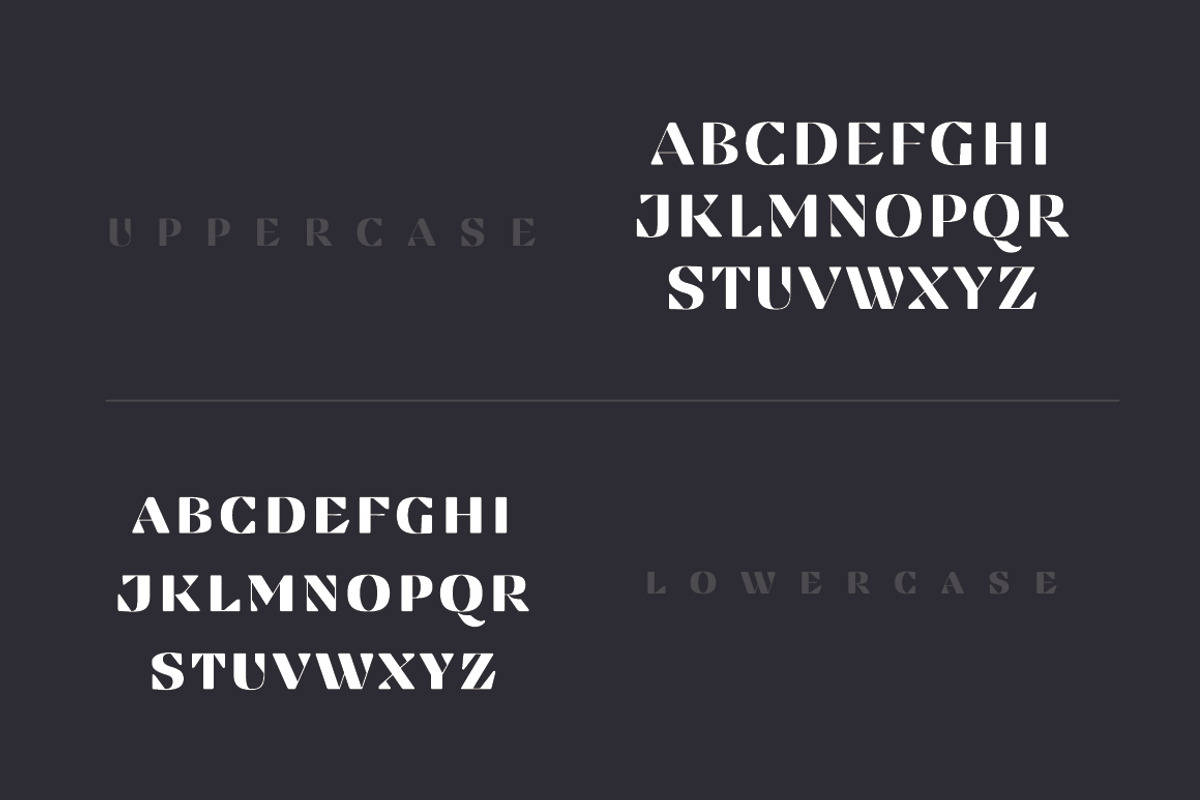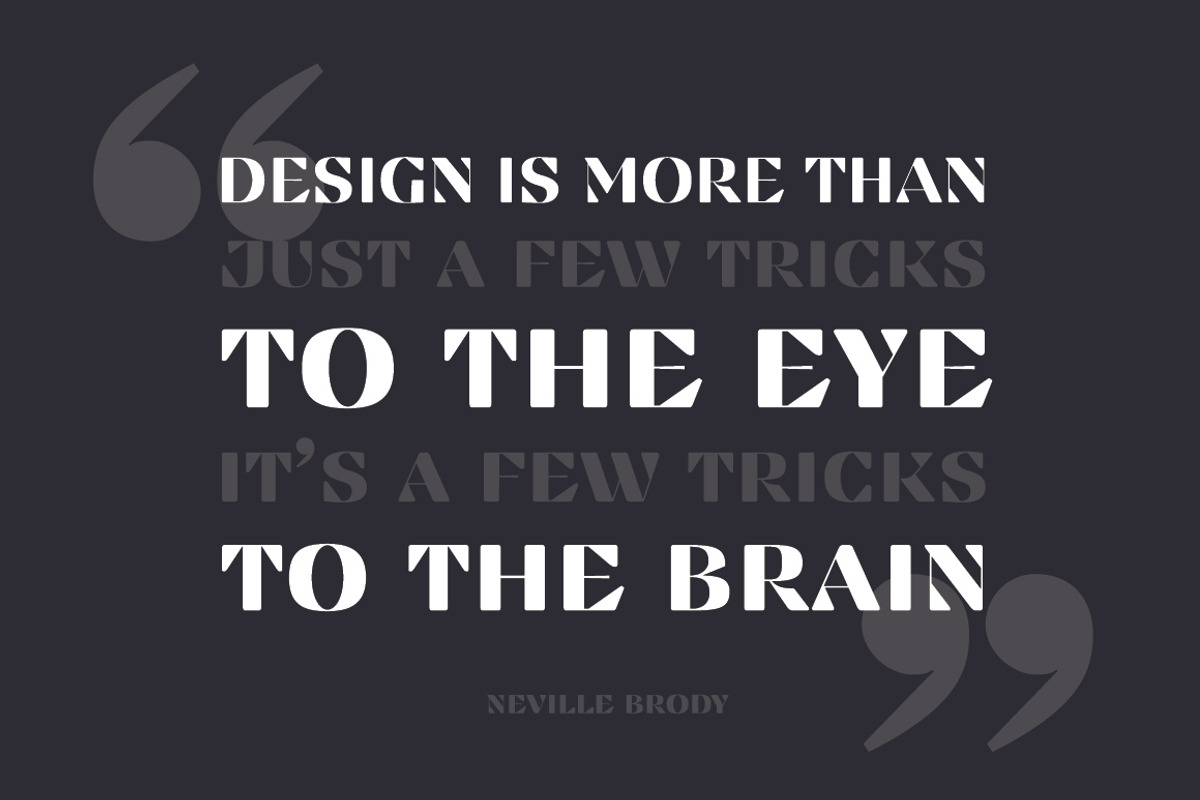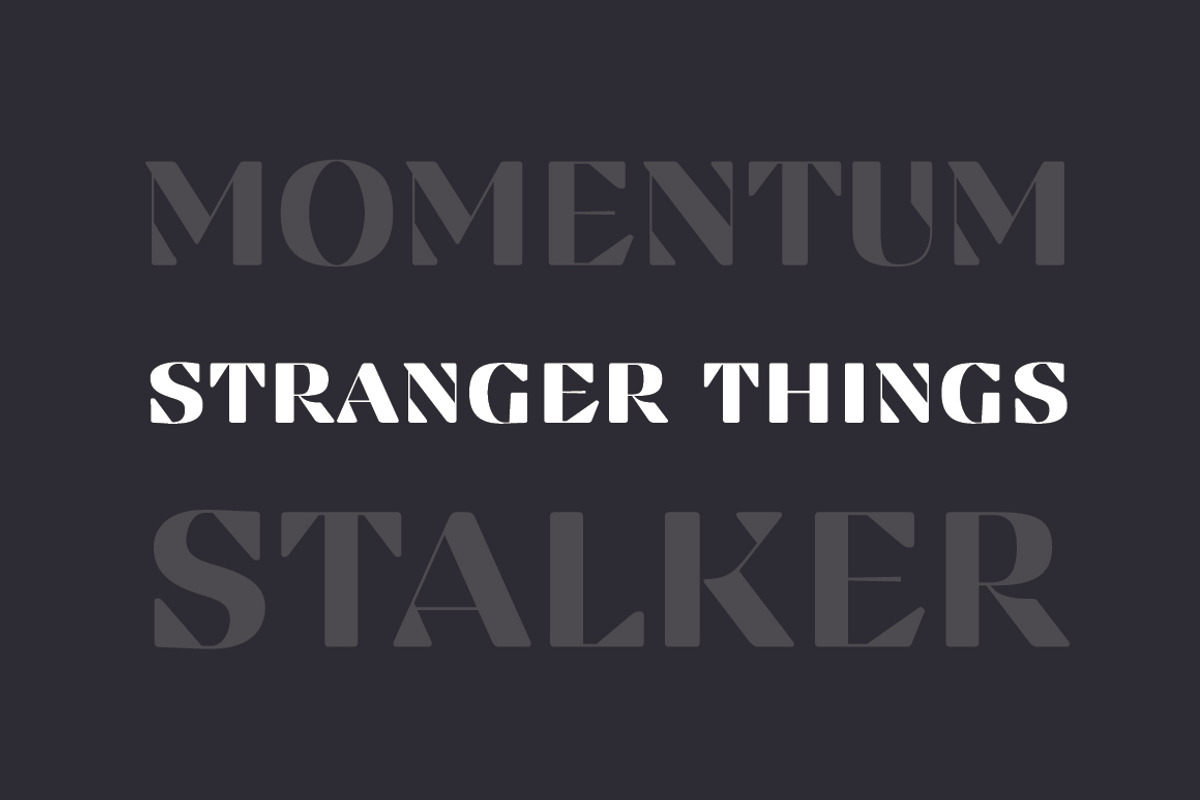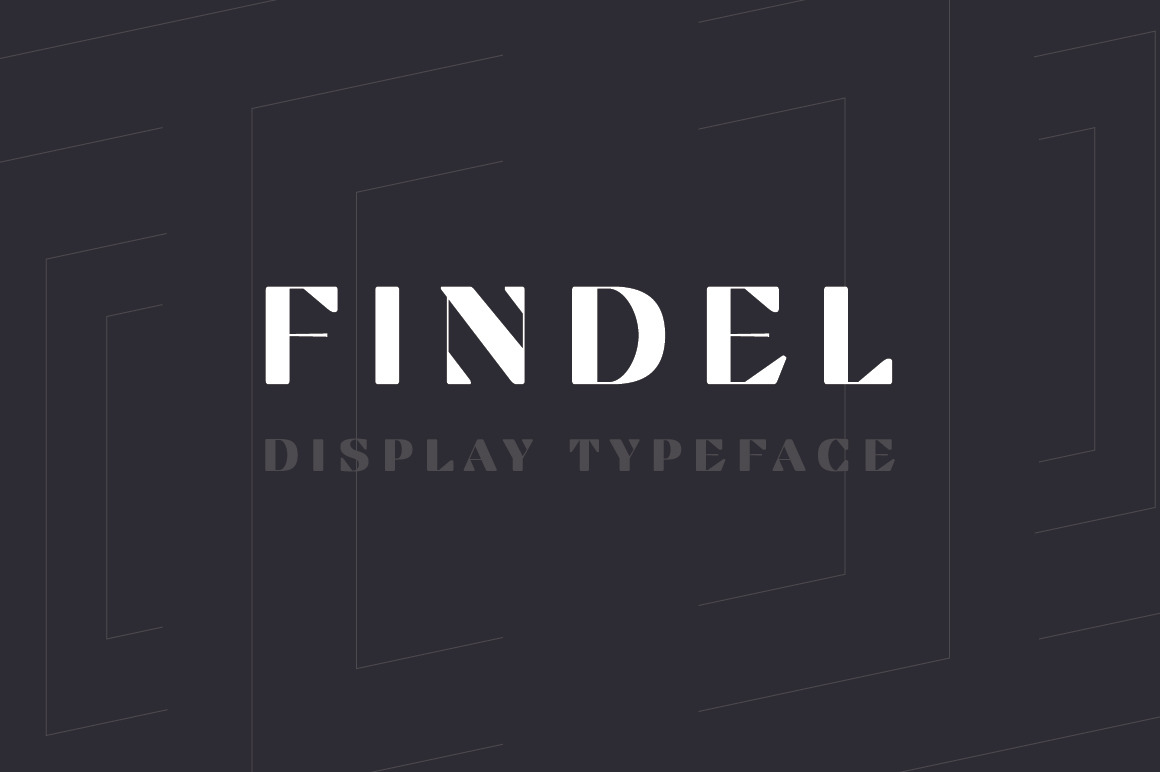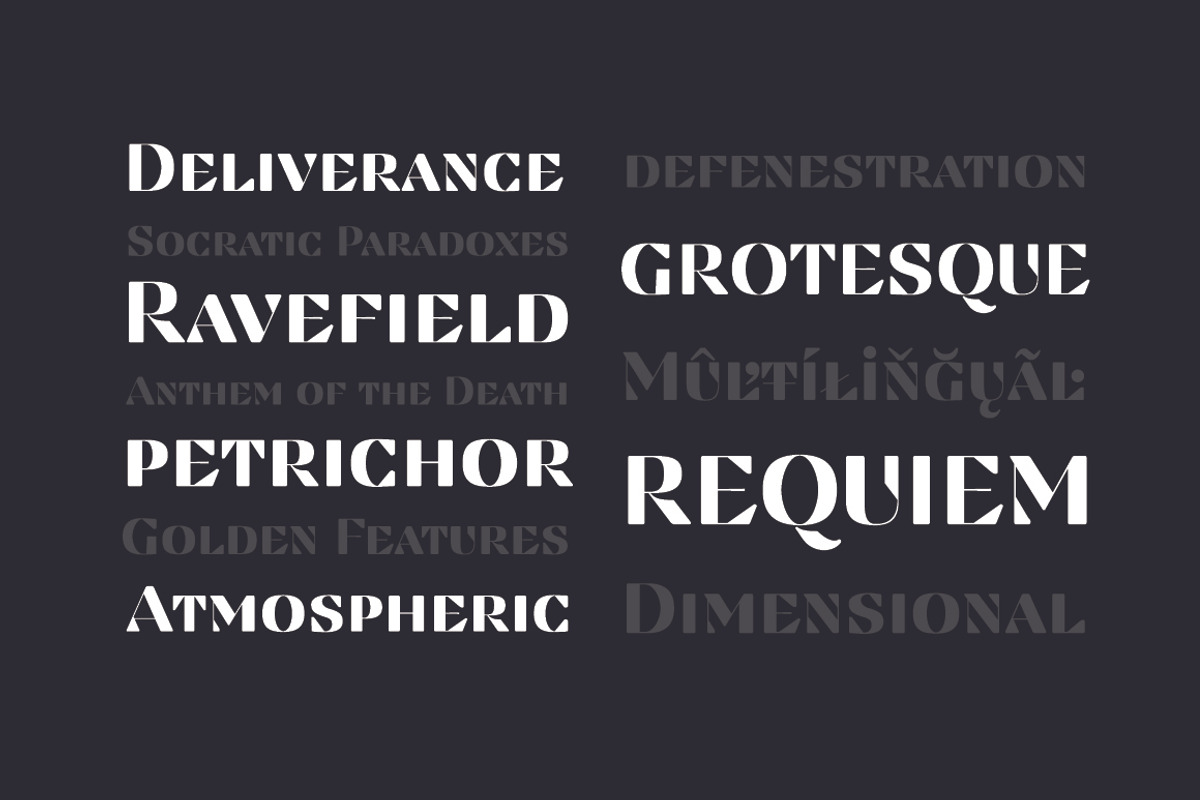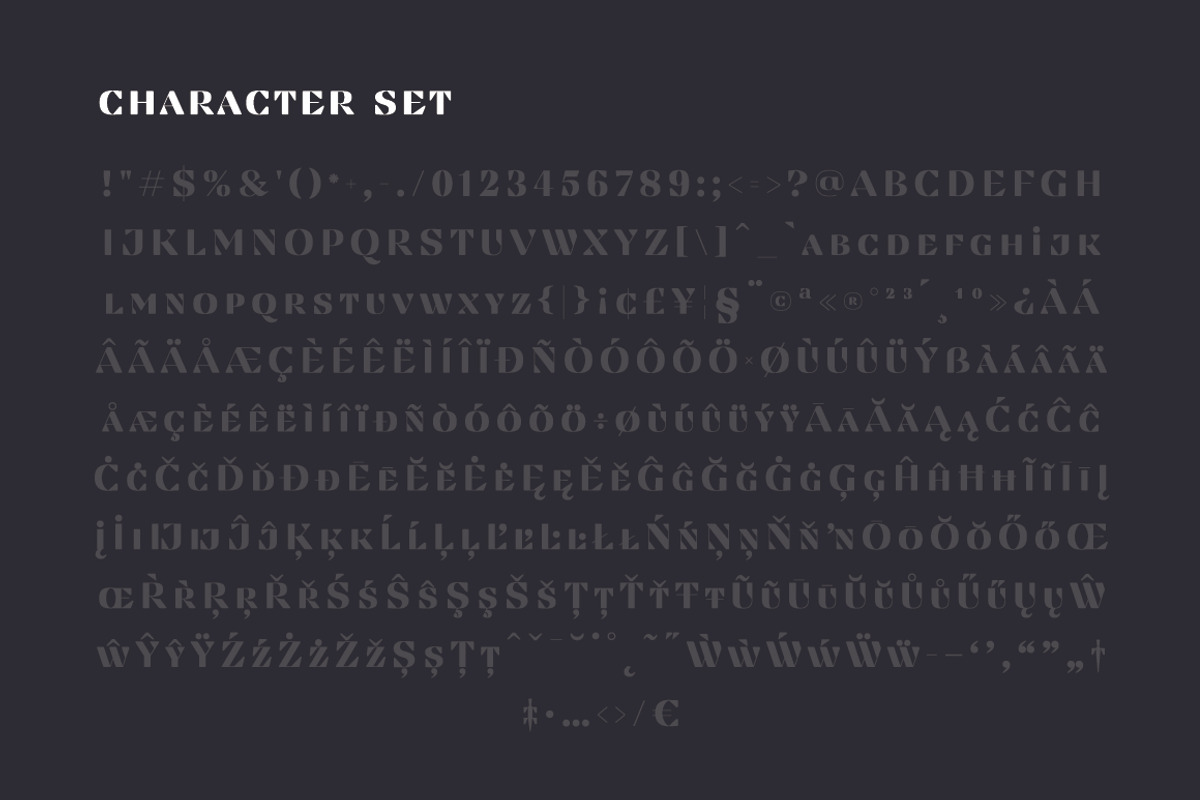
Findel Display Typeface
Findel Display is a display serif and art deco typeface designed for special logos and posters. Findel has extensive Latin language support.